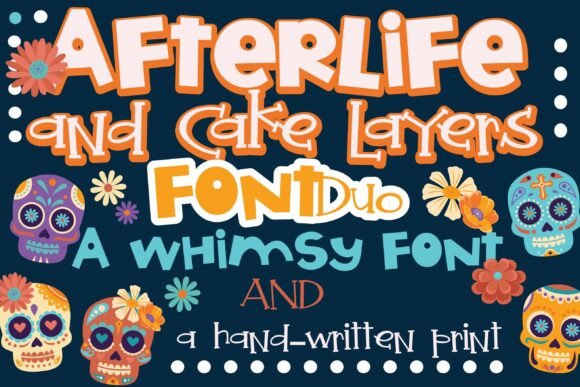
The Ultimate Font Duo for Celebratory Designs: Afterlife and Cake Layers
Have you ever been in the middle of a design project, and suddenly, you’re stuck on finding the perfect font? I recall a project where I had to create a vibrant Día de los Muertos poster, and my usual go-to fonts just weren’t cutting it. That’s when I stumbled upon the Afterlife and Cake Layers font duo, and it completely transformed my design. In this article, we’ll dive into the world of this whimsical font duo and explore its features, uses, and potential.
A Closer Look at Afterlife and Cake Layers
The Afterlife and Cake Layers font duo is a match made in heaven, bringing together a bold, festive display font (Afterlife) and a hand-drawn print style (Cake Layers). This combination allows designers to strike the perfect balance between joyful expression and unique personality. Whether you’re working on a party invitation, cultural poster, or themed branding, this font duo is sure to make your designs stand out.
So, what do I love about Afterlife and Cake Layers? Here are a few highlights:
• ✨ Unique character: Both fonts have distinct personalities that add a touch of whimsy to any design.
• ✅ Versatility: They work well for a wide range of projects, from spooky Halloween designs to vibrant cultural posters.
• 🎉 Festive feel: Afterlife and Cake Layers evoke a sense of celebration and joy, making them perfect for party invitations and themed branding.
While this font duo is amazing, there are a few small quirks to consider:
• 🤔 Glyph limitations: Some users may find that the glyph selection is limited, but the existing glyphs are well-designed and versatile.
• ⚠️ Pairing challenges: Finding the perfect pairing font can be tricky, but experimenting with different combinations can lead to great results.
The Story Behind Afterlife and Cake Layers
The Afterlife and Cake Layers font duo was inspired by the vibrant culture of Día de los Muertos (Day of the Dead). The designers aimed to create a font that would capture the spirit of celebration and storytelling, while also honoring the rich heritage of this Mexican holiday. The result is a unique and versatile font duo that’s perfect for a wide range of designs.
What is the best way to use Afterlife and Cake Layers? The best way to use this font duo is to pair Afterlife with Cake Layers for a unique and balanced look. You can also experiment with different font sizes and colors to create visual interest.